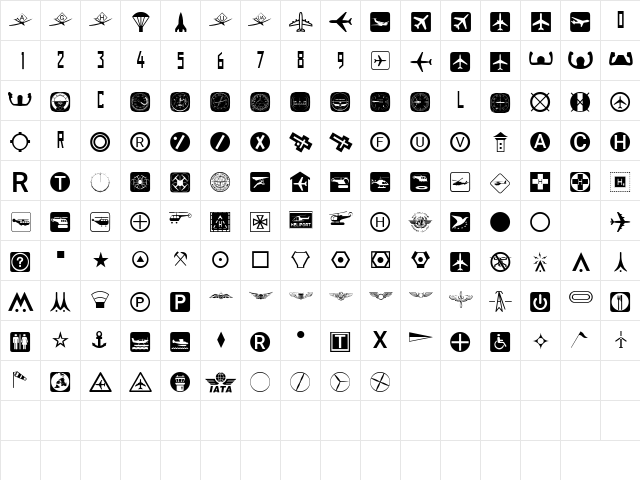
Aviation Regular
Design Context for Aviation Typeface
Aviation is a composed and adaptable typeface that performs quietly and consistently across a wide range of design contexts.